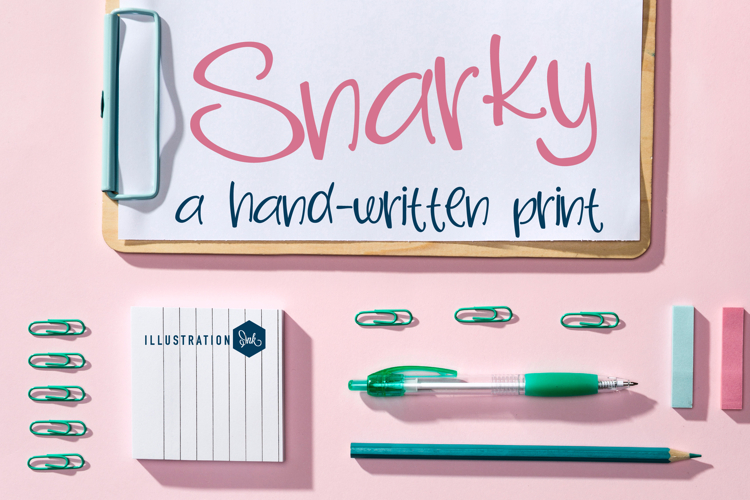
This hand-crafted font is a hand-written print with a youthful feel.
• The letters are not perfectly uniform in size or shape.
• There may be slight variations in the spacing between letters and words.
• The font may have a "wiggly" or "squiggly" appearance.
• The font may be difficult to read at small sizes.